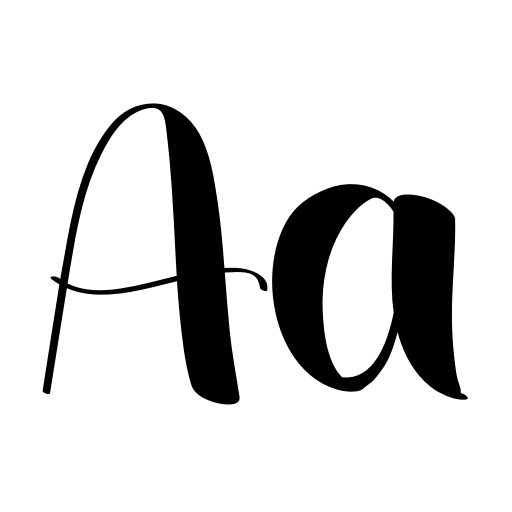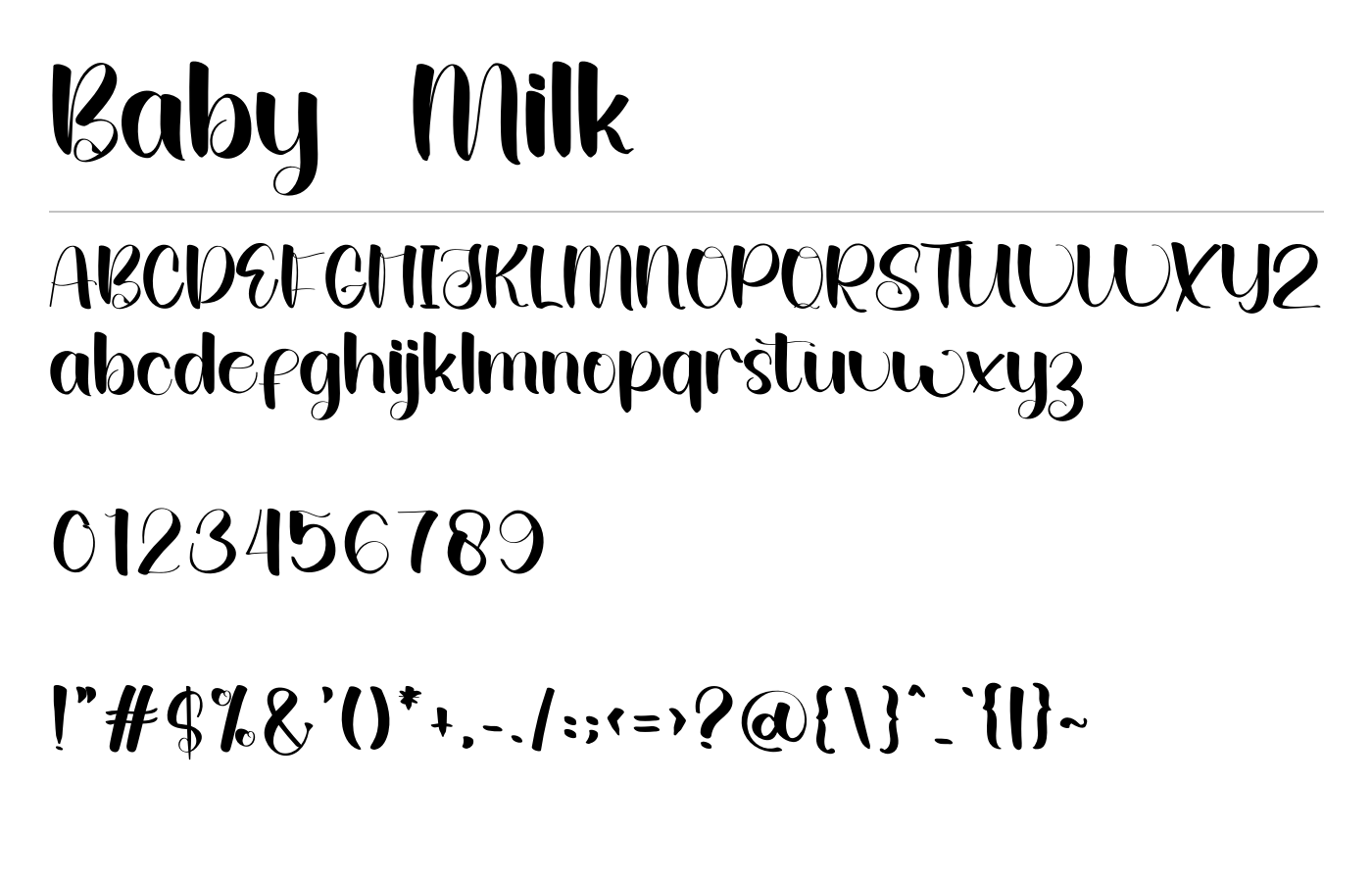
Baby Milk is a playful script font characterized by its smooth, flowing strokes and lively, whimsical curves. With its medium weight and distinctive swashes, it offers a friendly and approachable vibe, perfect for branding, invitations, and any design seeking a warm, personal touch with a modern flair. This font works well in headlines and decorative text, adding a charming, handcrafted feel.
Baby Milk Font
About Baby Milk Font